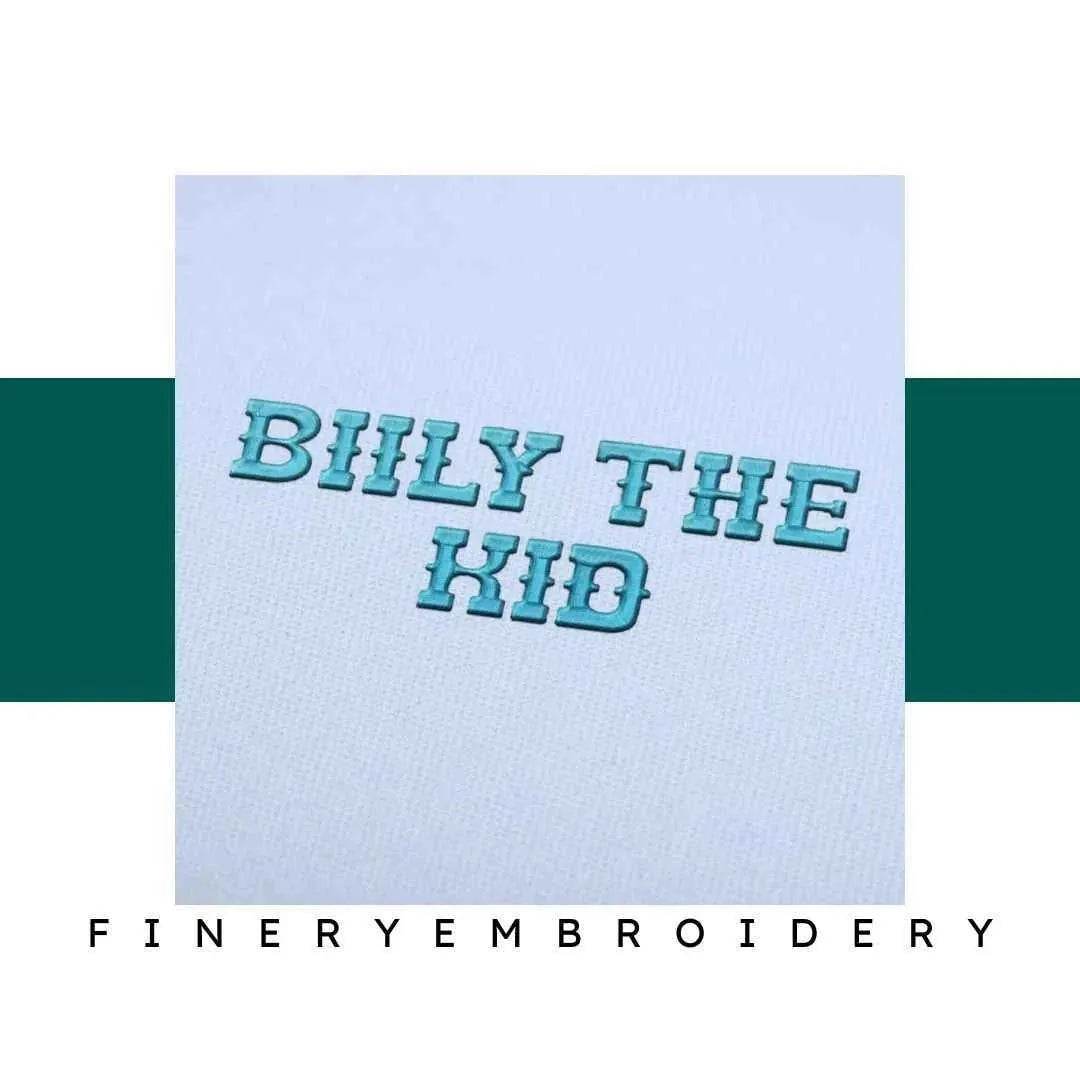
Unleash your creativity with the Billy the Kid Embroidery Font – where vintage meets versatility for all your embroidery projects!
Introducing the Billy the Kid Embroidery Font, your perfect companion for adding a dash of Wild West charm to every creation. This stunning alphabet set captures the essence of the frontier era, making it the ideal choice for personalizing your clothing, accessories, and home décor. Whether you're crafting custom gifts or enhancing your collection, this meticulously digitized font will elevate your embroidery projects to new heights.
The Billy the Kid Embroidery Font brings a timeless appeal to your designs. Each character is crafted with precision, ensuring that every letter reflects the rugged elegance of cowboy culture. You’ll find that the bold letters are not just eye-catching but also versatile, allowing you to create a myriad of designs that celebrate the spirit of the Wild West.
Imagine personalizing your favorite denim jacket or creating memorable gifts for friends and family. This font can be used on a variety of surfaces including fabrics, bags, and even home accessories. Let your imagination run wild as you incorporate this vintage alphabet into your projects, adding a unique touch that tells a story.